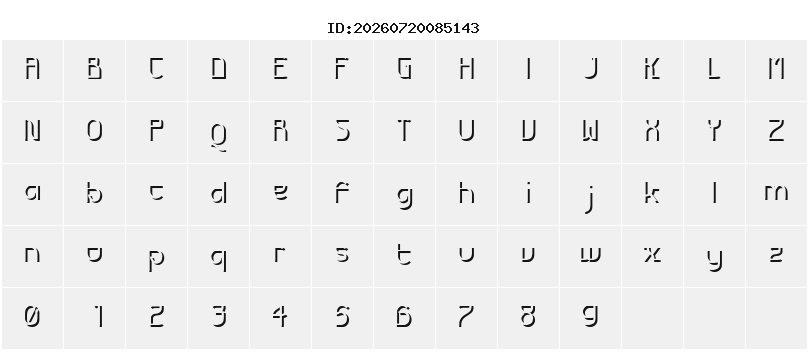
About Futurex Embossed.ttf
Futurex Embossed.ttf is a modern, elegant sans-serif font designed for ultimate readability and visual harmony. Perfect for branding, headlines, web design, and print materials.